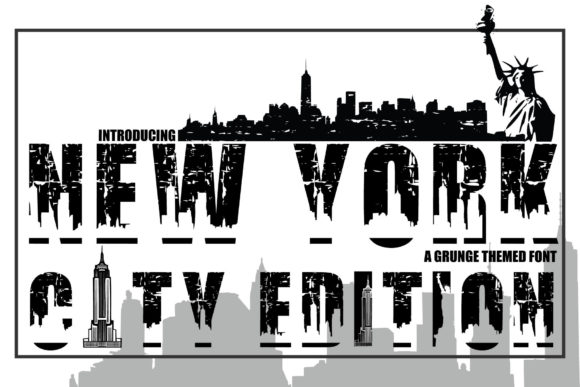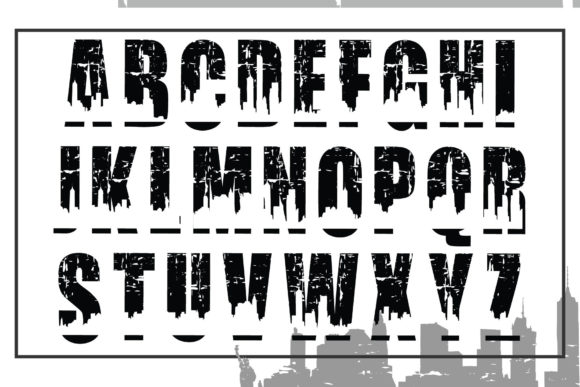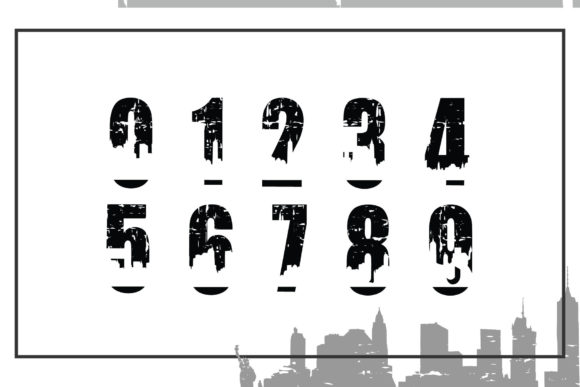
New York City Edition Font
About the New York City Edition Font
Crafted with precision, the New York City Edition Font is ready to bring your ideas to life. New York City Edition is a bold and incredibly cool decorative font. It can be used for various design ideas, particularly those related to the glamorous life in the Big Apple. Have fun with this beautiful font and explore its endless variations.
This font excels in headline applications, particularly for projects evoking a sense of urban sophistication and high energy. It’s ideal for posters, branding materials for nightlife venues or fashion brands, and even select packaging designs where a strong visual statement is needed. Avoid using it for body text or long-form content; its decorative nature reduces readability at smaller sizes.
New York City Edition’s bold personality pairs well with clean, modern sans-serif fonts like Helvetica Neue for a balanced contrast. For a touch of elegance, consider pairing it with a classic serif like Garamond, letting the serif font handle smaller text elements. A script font like Great Vibes could add a touch of playful contrast, depending on the overall project aesthetic.
The font projects a confident, bold, and slightly rebellious energy. It’s best suited for brands aiming for a sophisticated yet edgy image, avoiding overly corporate or minimalist aesthetics.